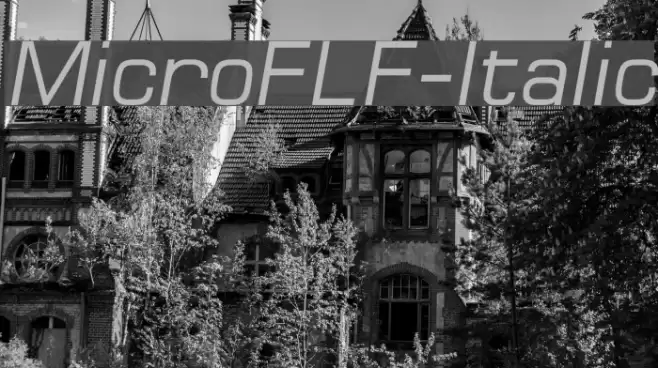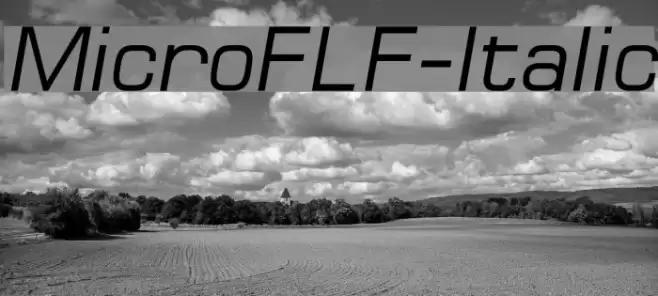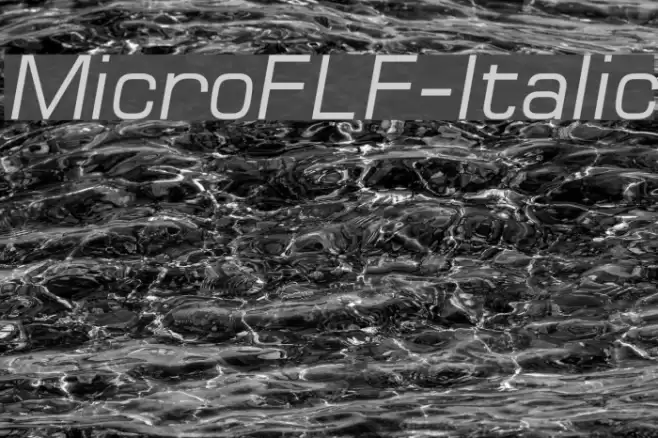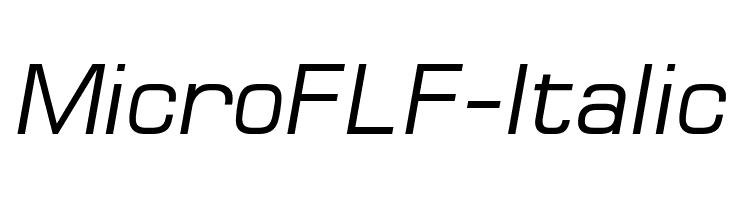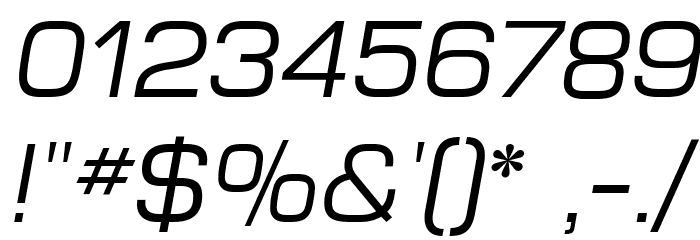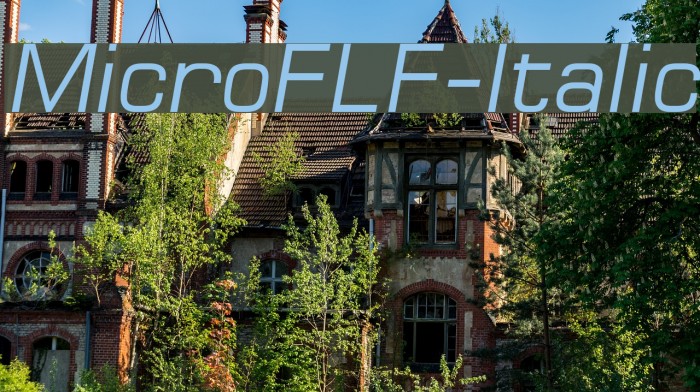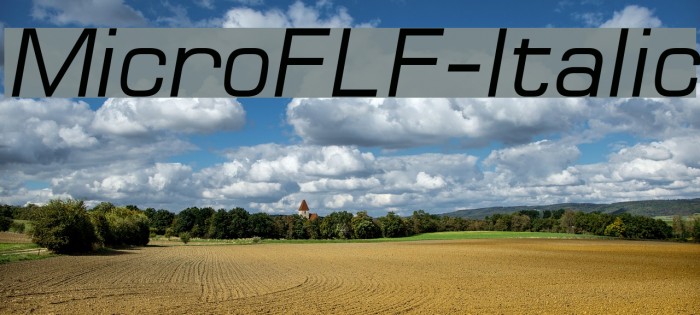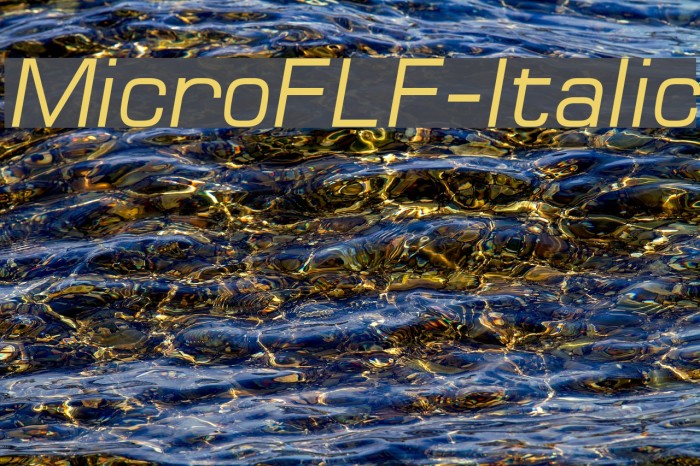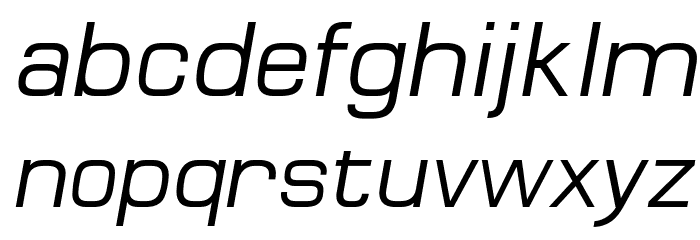
MicroFLF-Italic Font
MicroFLF-Italic Description
This font features a sleek and modern design with a distinct italic slant, giving it a dynamic and forward-moving appearance. The characters are clean and streamlined, with a uniform stroke width that maintains clarity and readability. The uppercase and lowercase letters are well-proportioned, and the numerals are consistent in style, making them easily distinguishable. The special characters are designed to complement the overall aesthetic, ensuring a cohesive look across all text elements. This font is versatile, suitable for both digital and print media, and can be used to convey a sense of professionalism and modernity.
A sleek, modern italic font with uniform stroke width and dynamic style from Uncategorized fonts.
- Proposed Projects: Ideal for branding, advertising, digital interfaces, and modern editorial design.